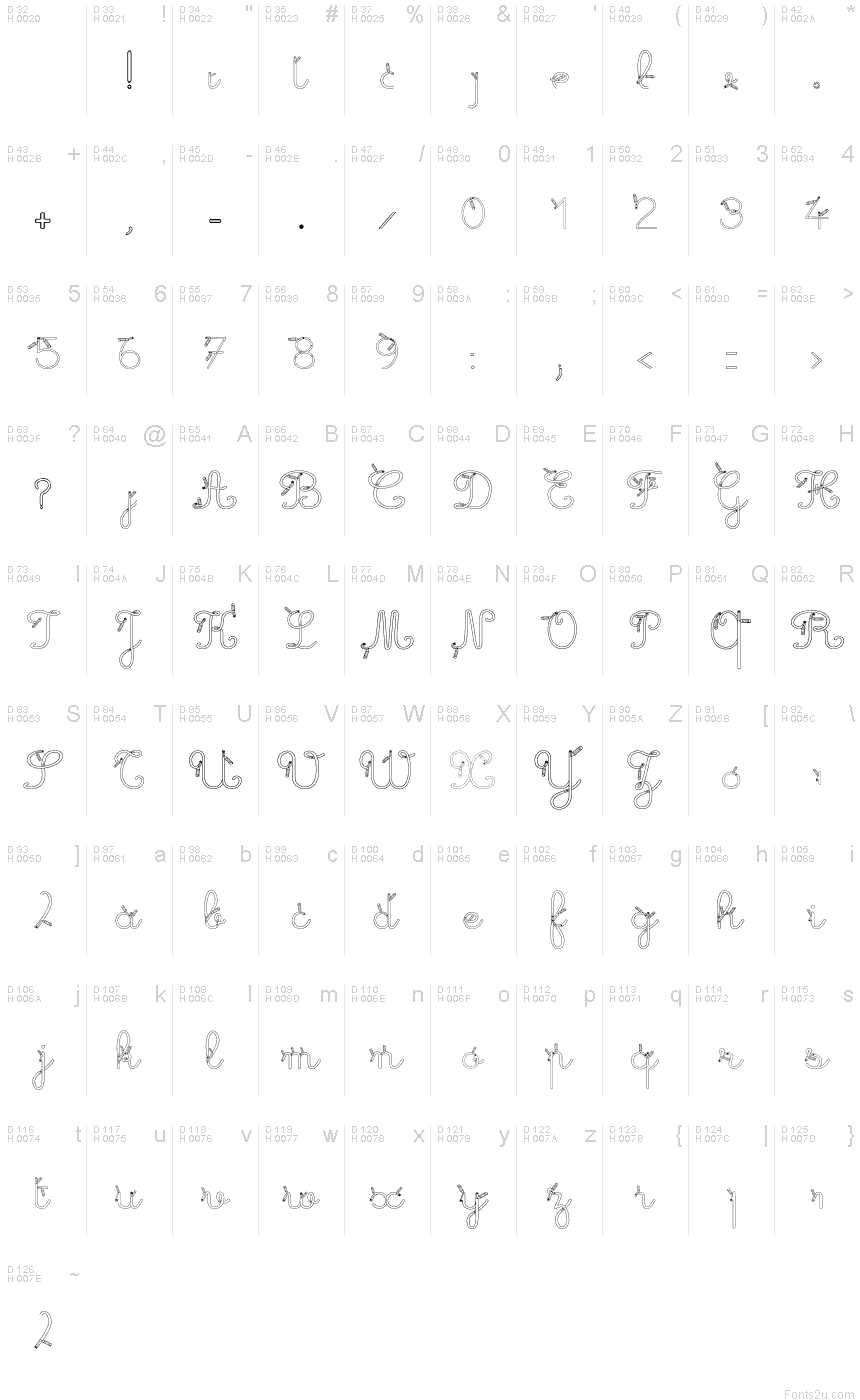
Maternellecolor creuse
Maternellecolor creuse is a free typeface with a handwritten outline script style and small pencil-like accents woven into the letters. The open double-line drawing gives it a classroom-made, sketched feel without looking messy.
This free font works well for school posters, children's invitations, lesson covers, scrapbook titles, and educational branding because the pencil details make the lettering feel playful and handmade. It also fits labels and decorative headers when you want a friendly note that looks more crafted than formal.